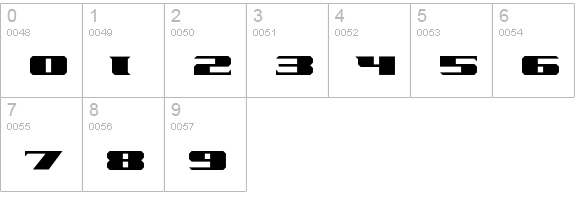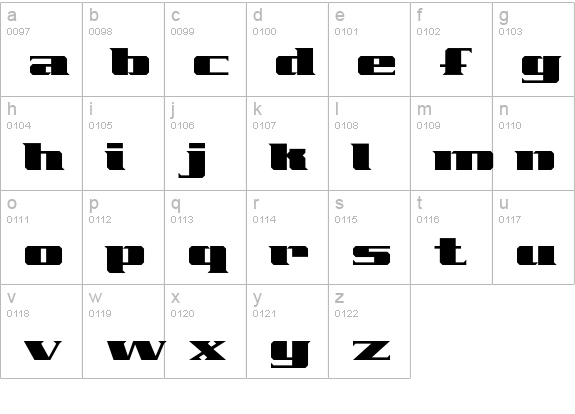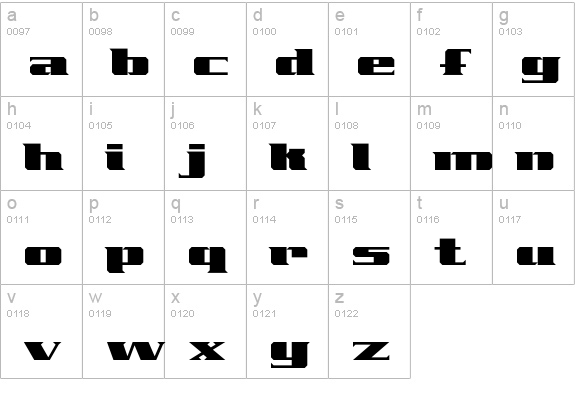
FreeLine-Serif Font Details
Introducing FreeLine-Serif, a classic and elegant serif font designed to bring a touch of sophistication to your projects. With its clean lines and timeless appeal, this font is perfect for a wide range of design applications, from branding to editorial design. The FreeLine-Serif font features a perfect balance of traditional and contemporary elements, making it versatile and suitable for various design styles. One of the best things about FreeLine-Serif is that it is completely free to download at FontsMarket.com. Yes, you read that right - this high-quality font is available for free, allowing you to enhance your projects without breaking the bank. So why wait? Head over to FontsMarket.com now and add FreeLine-Serif to your font collection for a touch of elegance and sophistication in your designs.